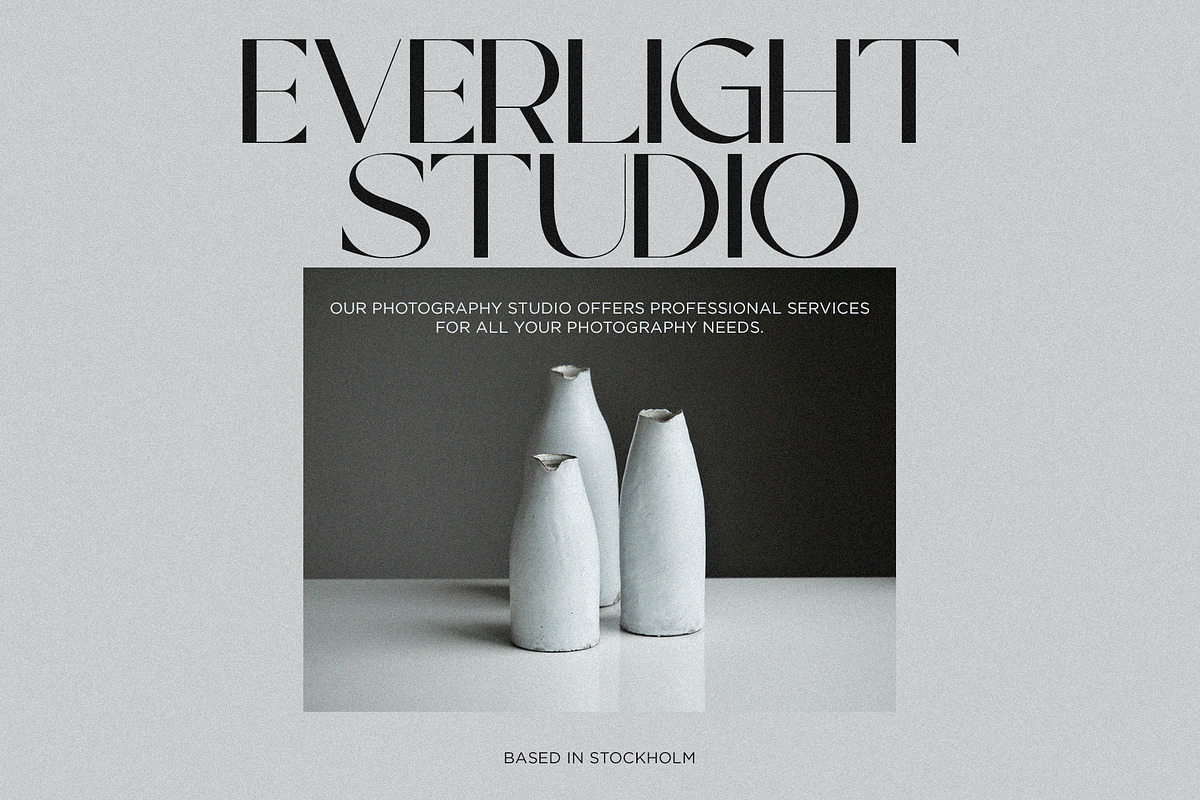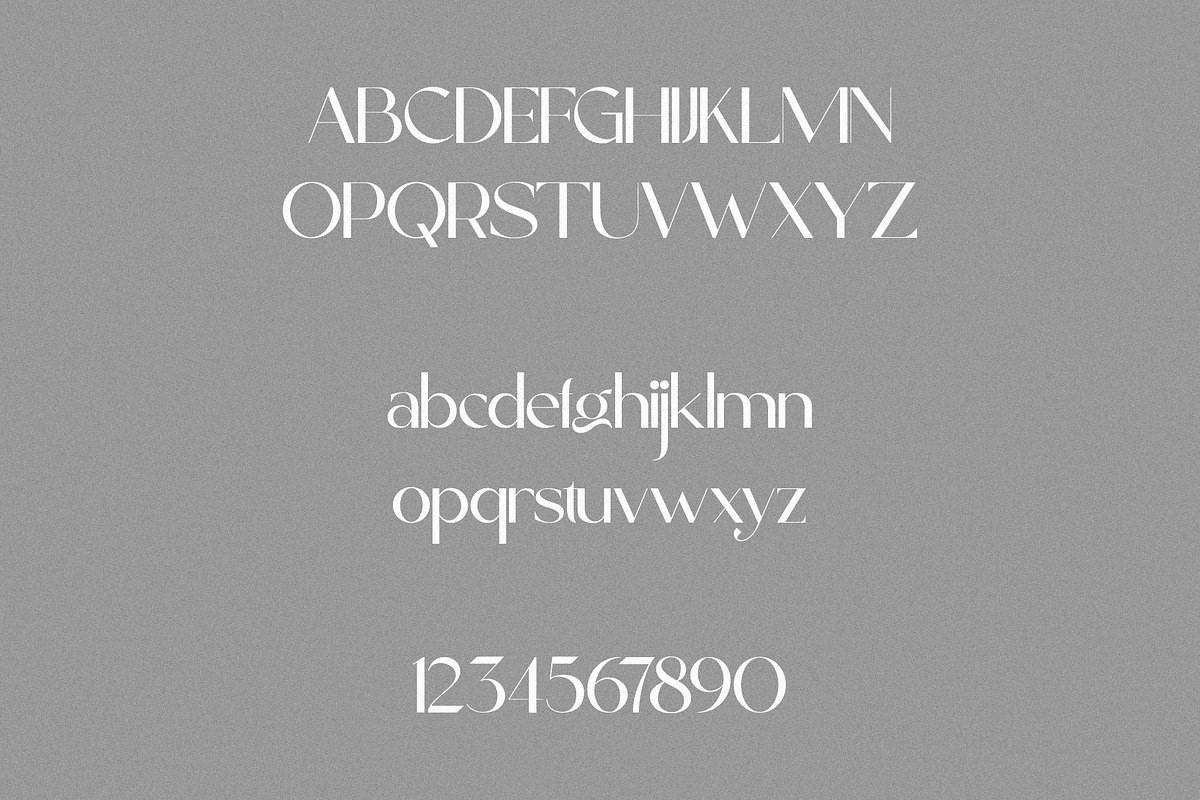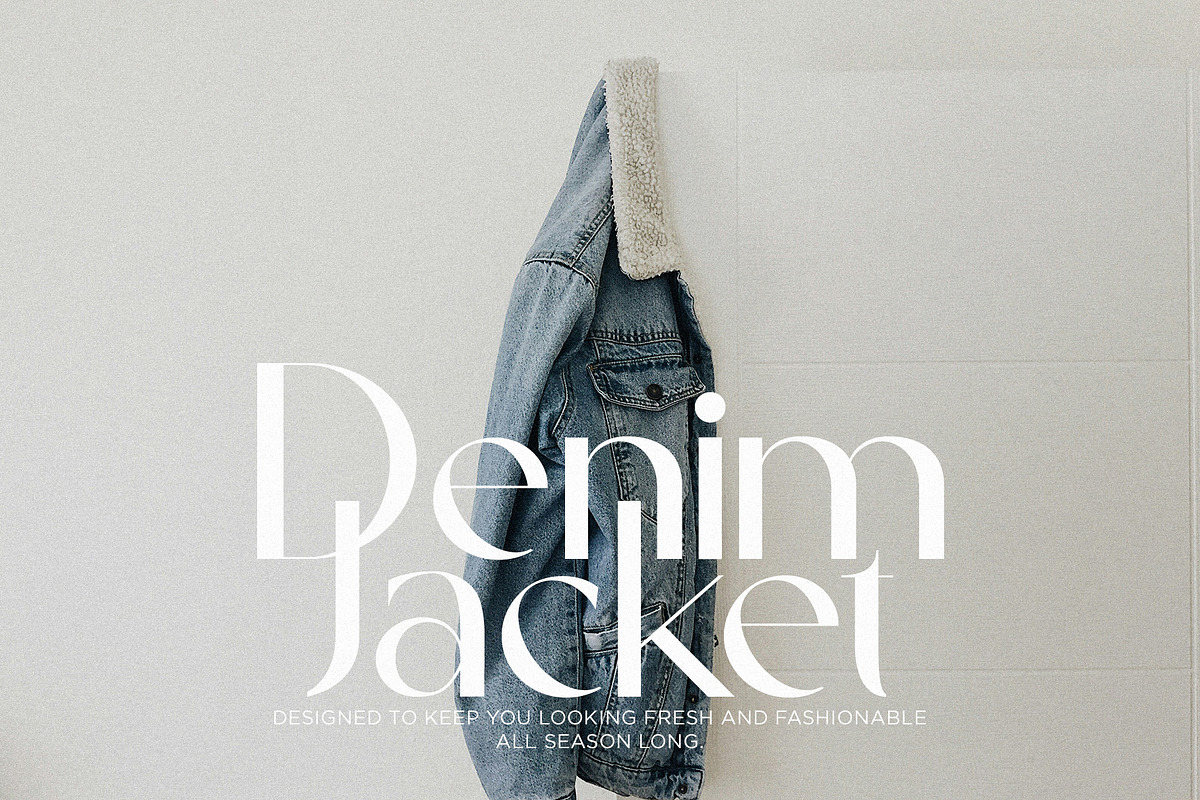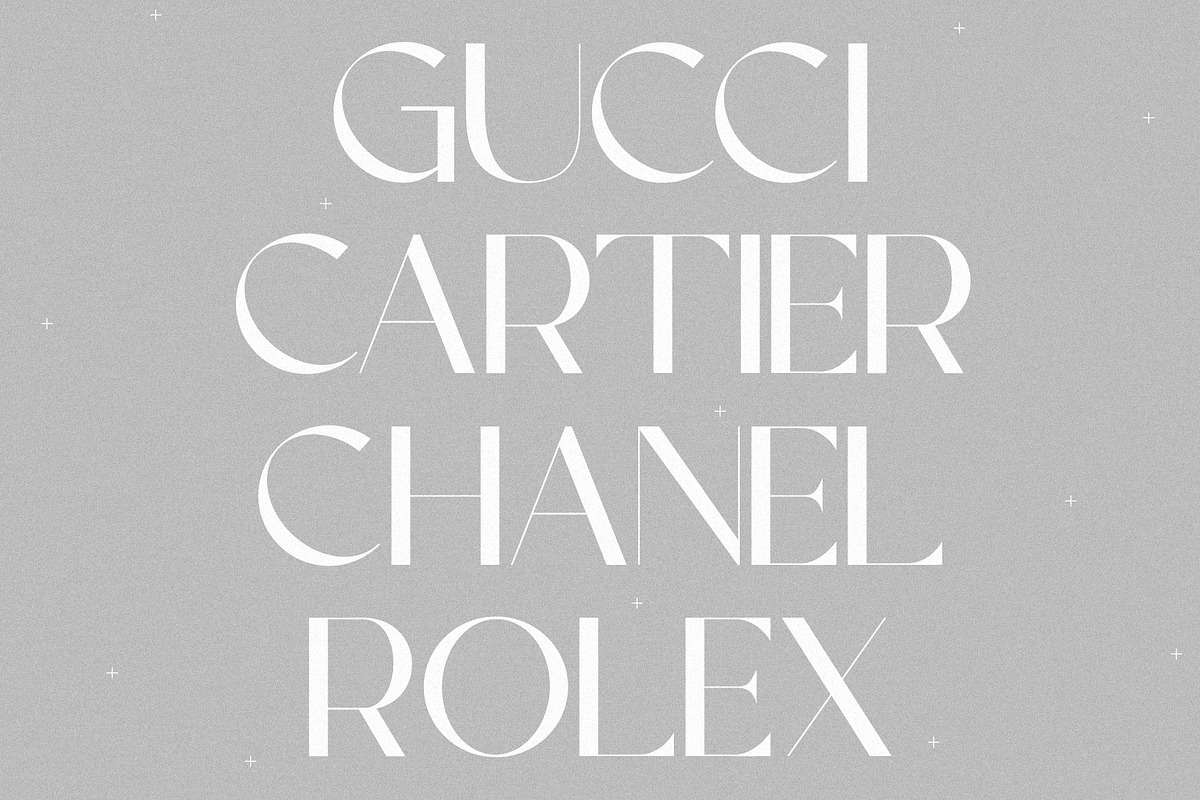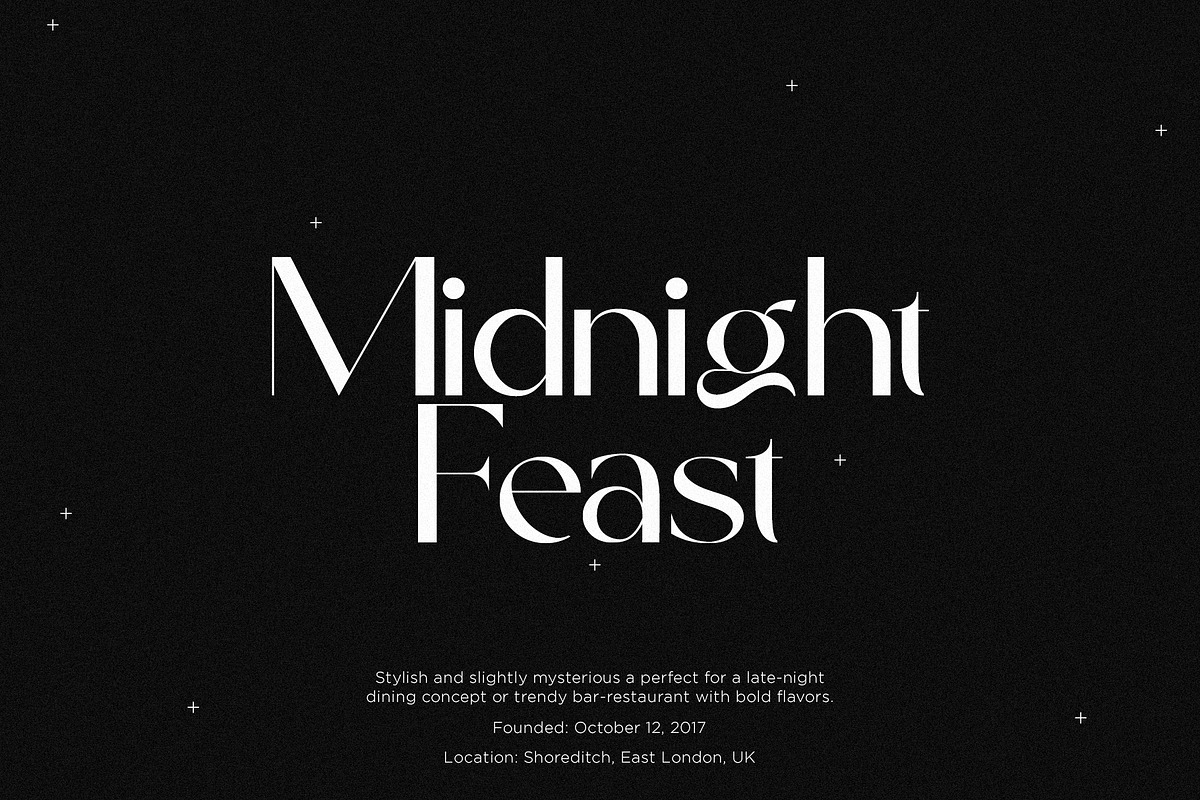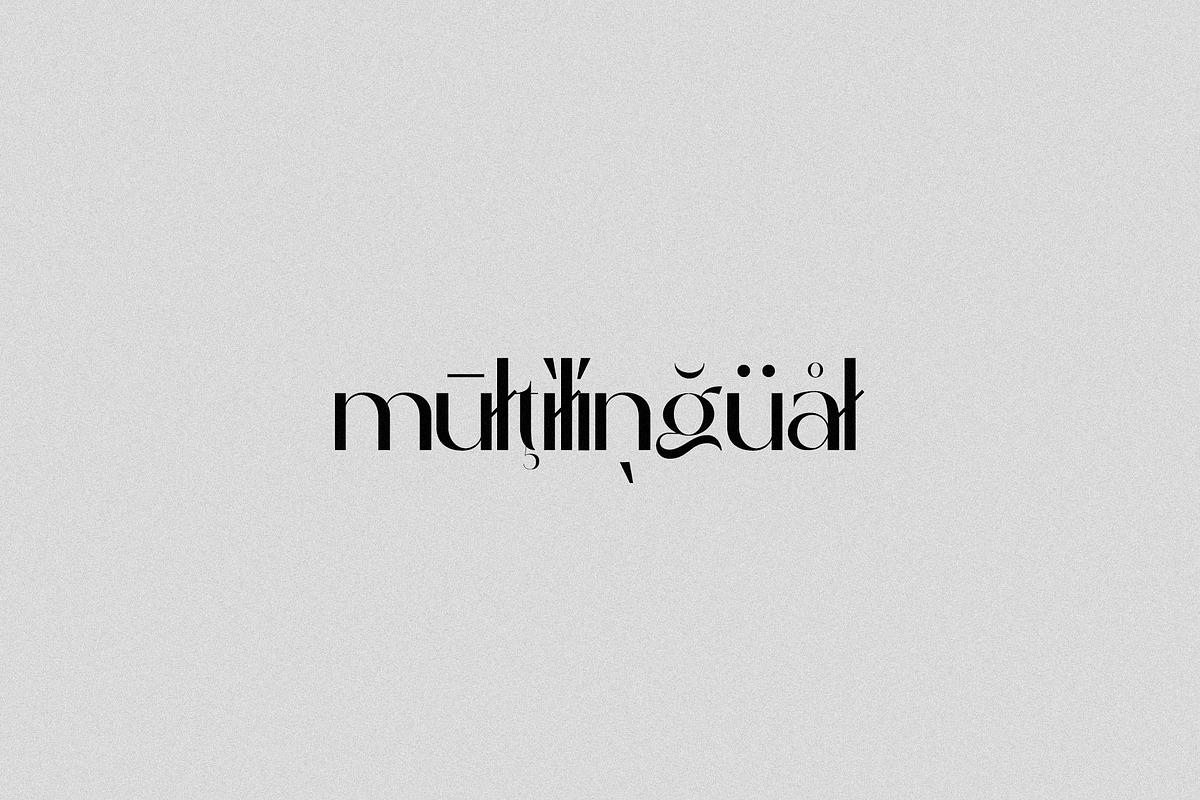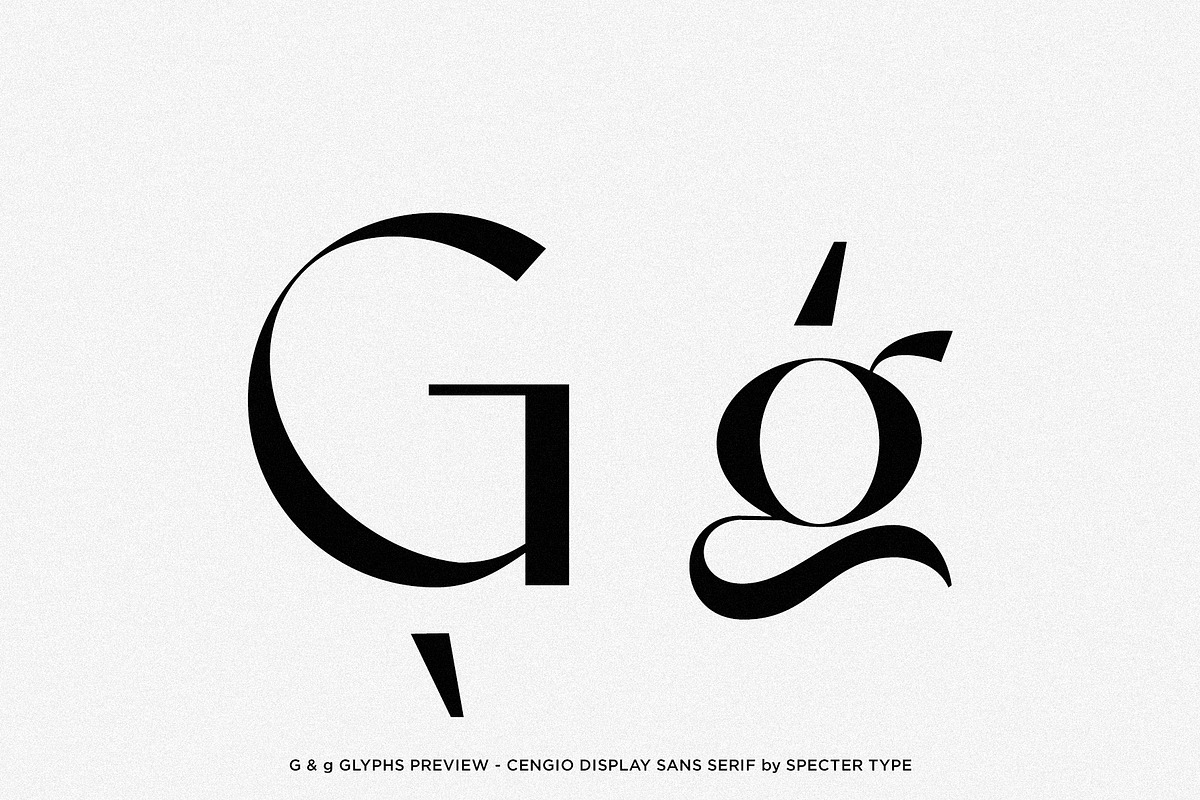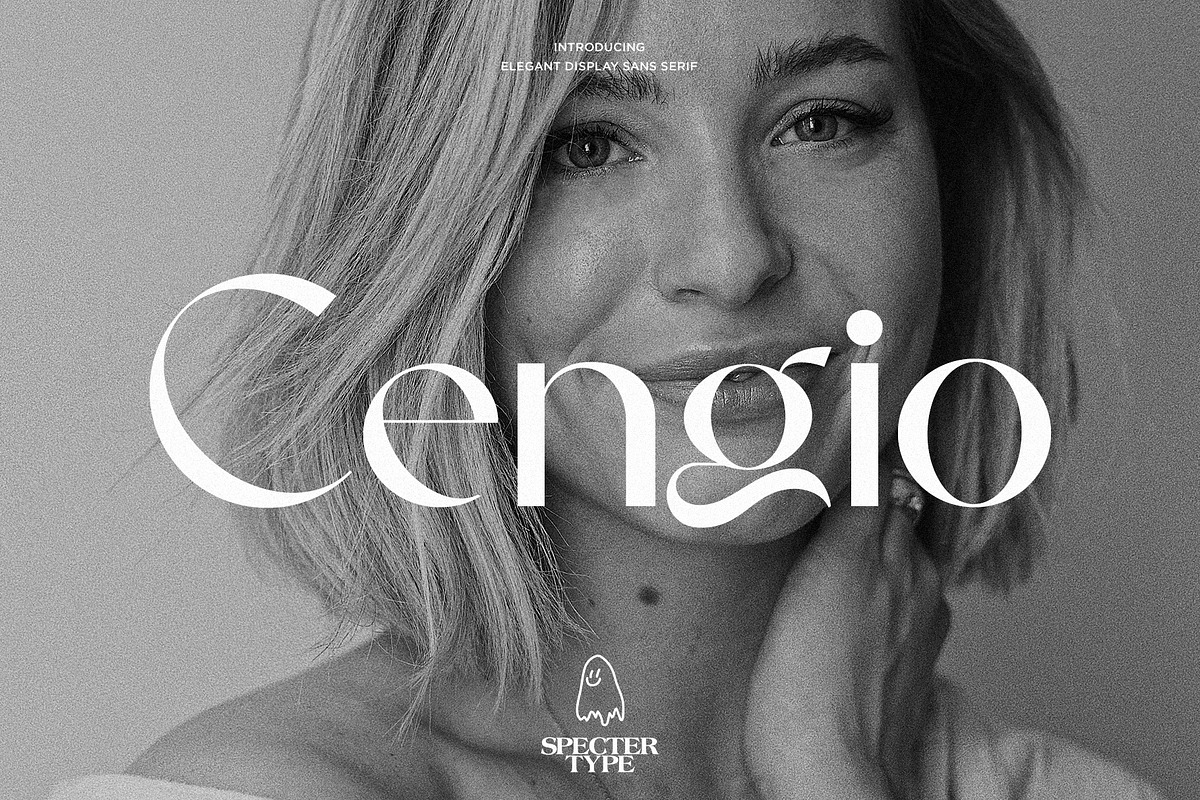
Cengio - Elegant Display Sans Serif
Cengio is a refined and modern sans serif typeface, designed to make a bold yet sophisticated statement. With its clean, geometric lines and subtle curves, it offers a perfect blend of elegance and clarity. This typeface excels in display settings, making it ideal for headlines, logos, branding, and other high-impact applications. Whether used in print or digital design, Cengio’s balanced proportions and contemporary appeal add a touch of luxury and style to any project, while maintaining excellent readability. Perfect for designs that need to stand out with both strength and sophistication.
Cengio features uppercase & lowercase letters, numbers & symbols, multilingual support, over 300+ glyphs.